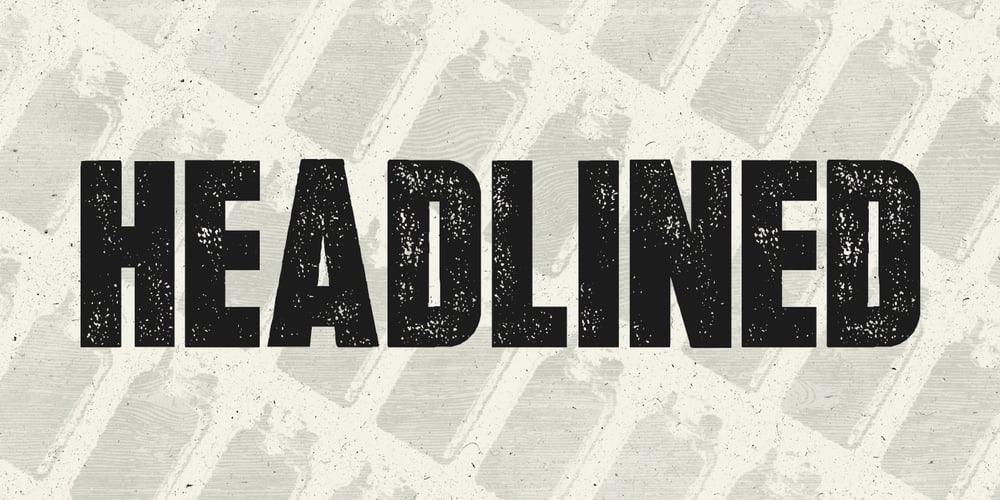
Headlined
Headlined font
Headlined Font Family was designed by Alex Haigh, Dawn Lewandowski and published by HyperFluro. Headlined contains 1 styles and family package options. Reminiscent of a stencilled spray-paint message, making a stand against the world, Headlined is equally at home expressing the voices of the oppressors and the oppressed. Simple in application, this font sets down an idea and makes it stand out from the crowd with a bold tone backed up by a slight fading that implies age and wisdom. Make a statement with Headlined and watch the world change. Alternatively if you’re looking for something a little cleaner, check out Headlined Solid.